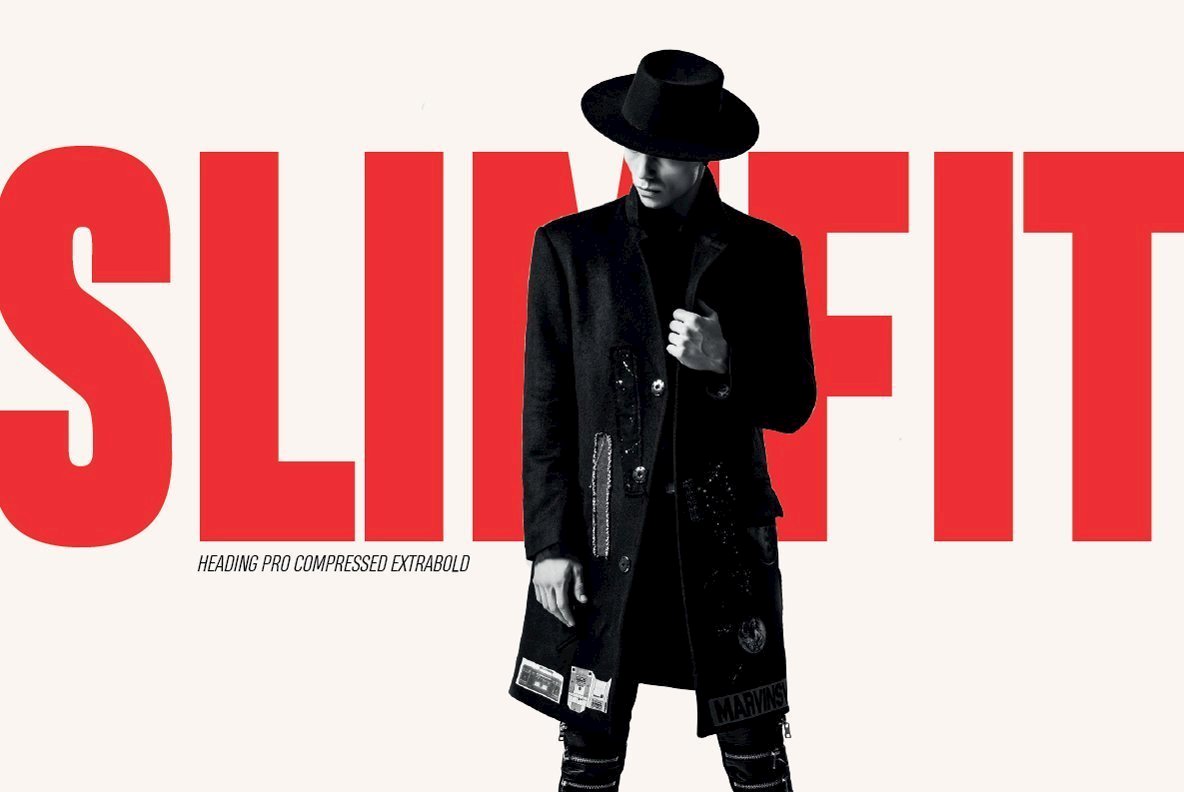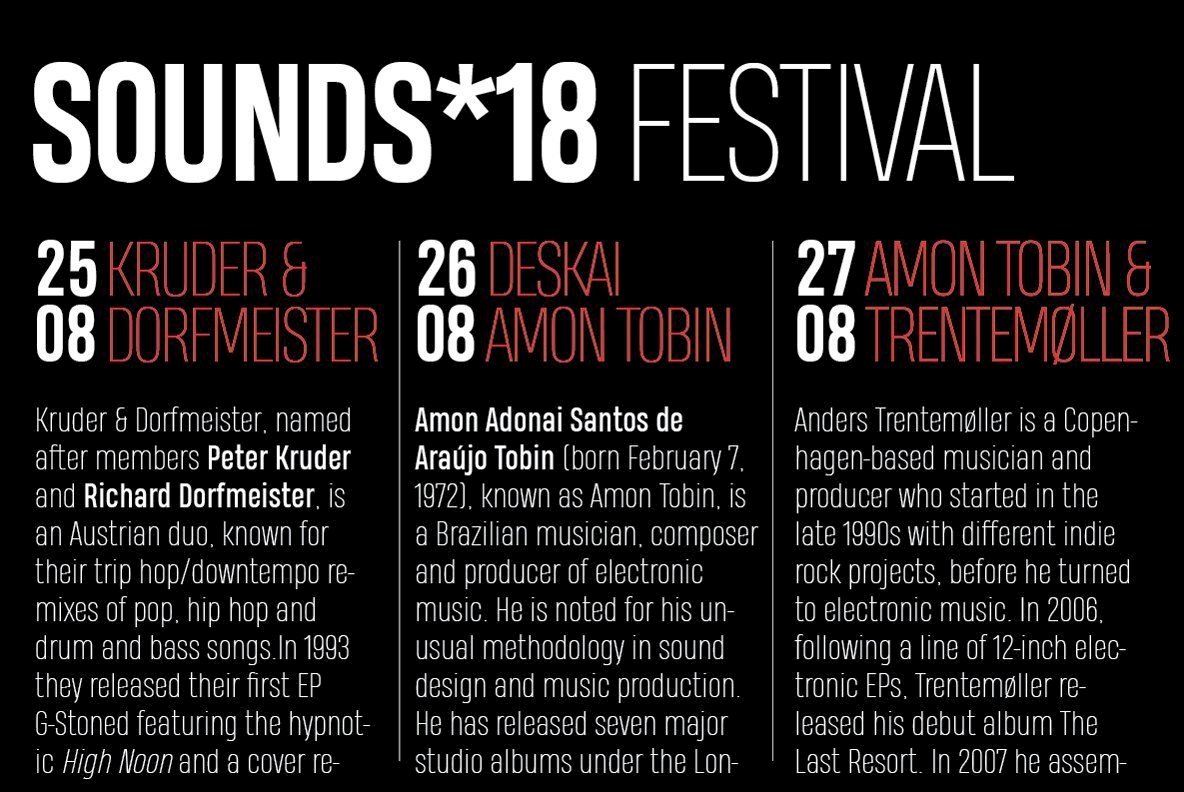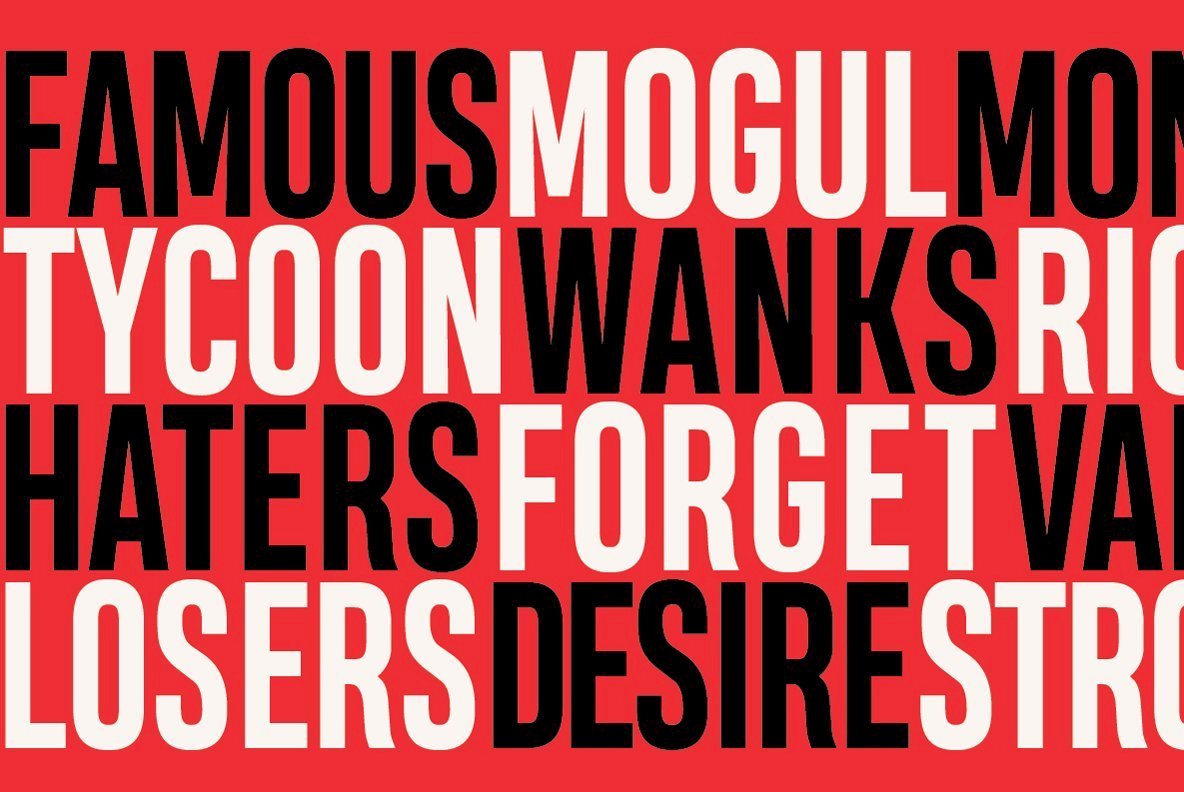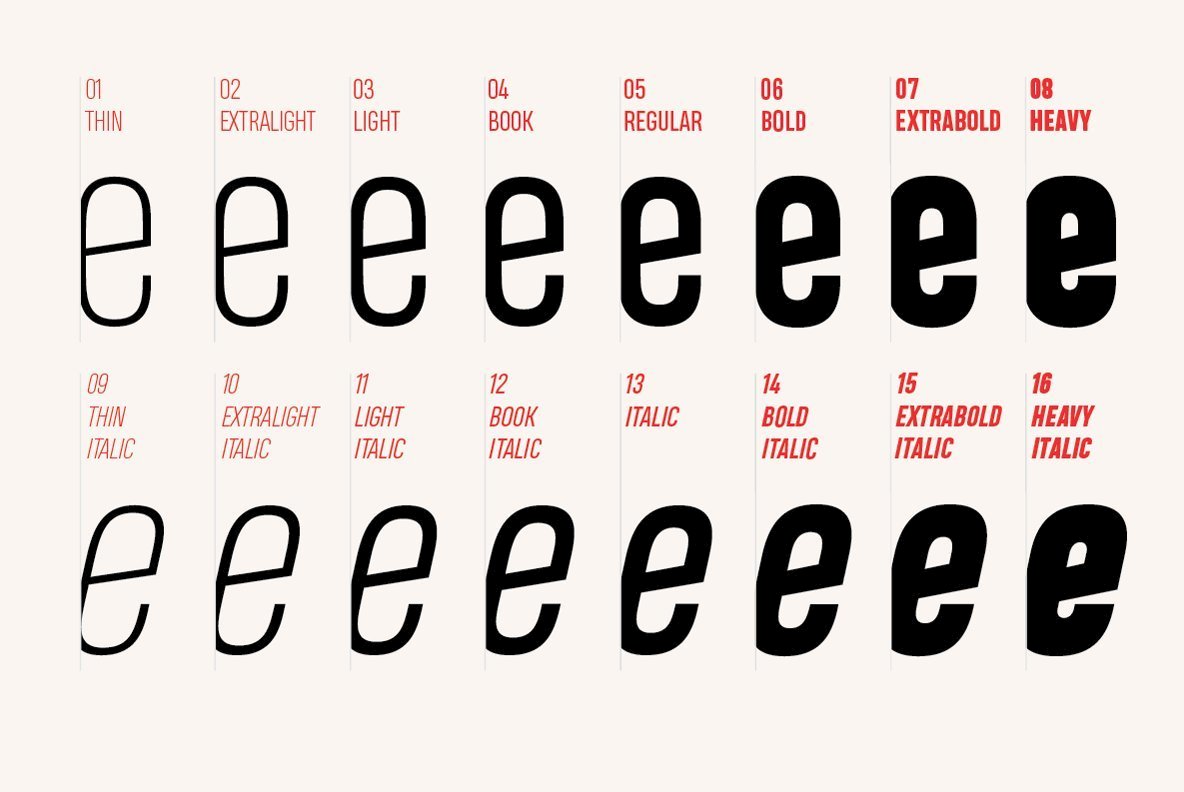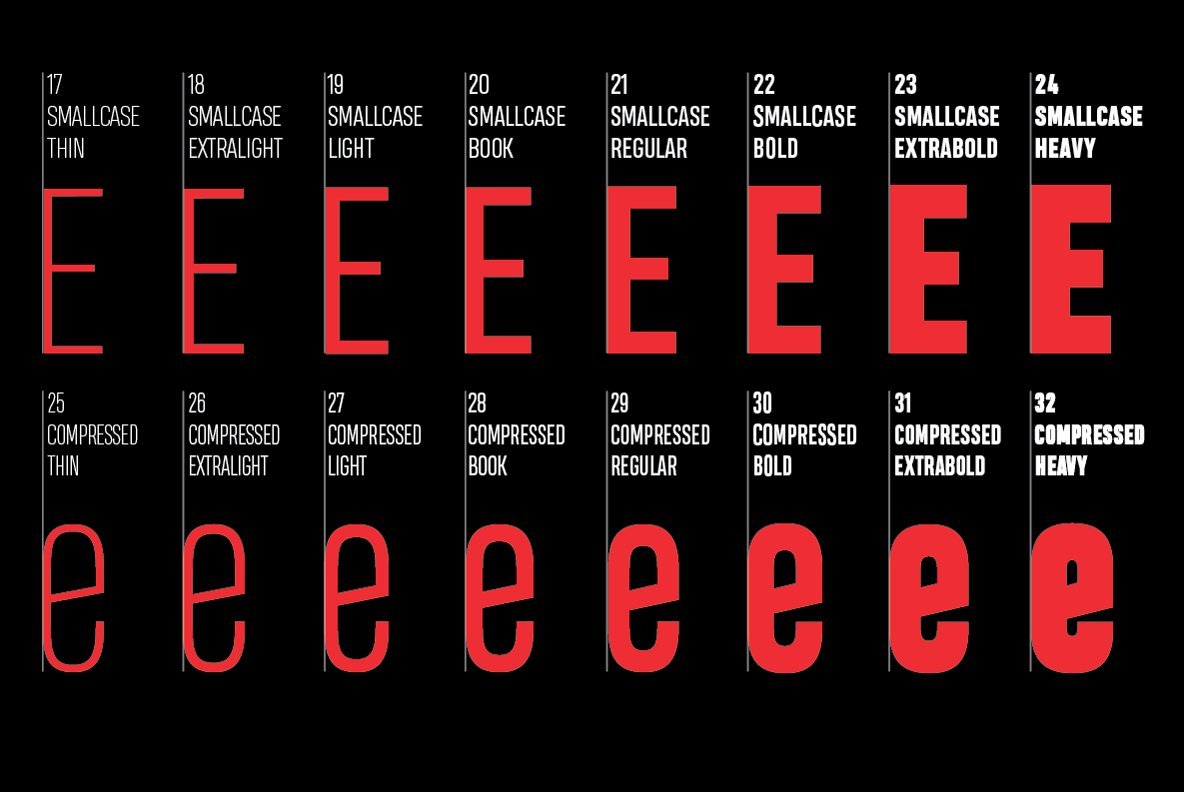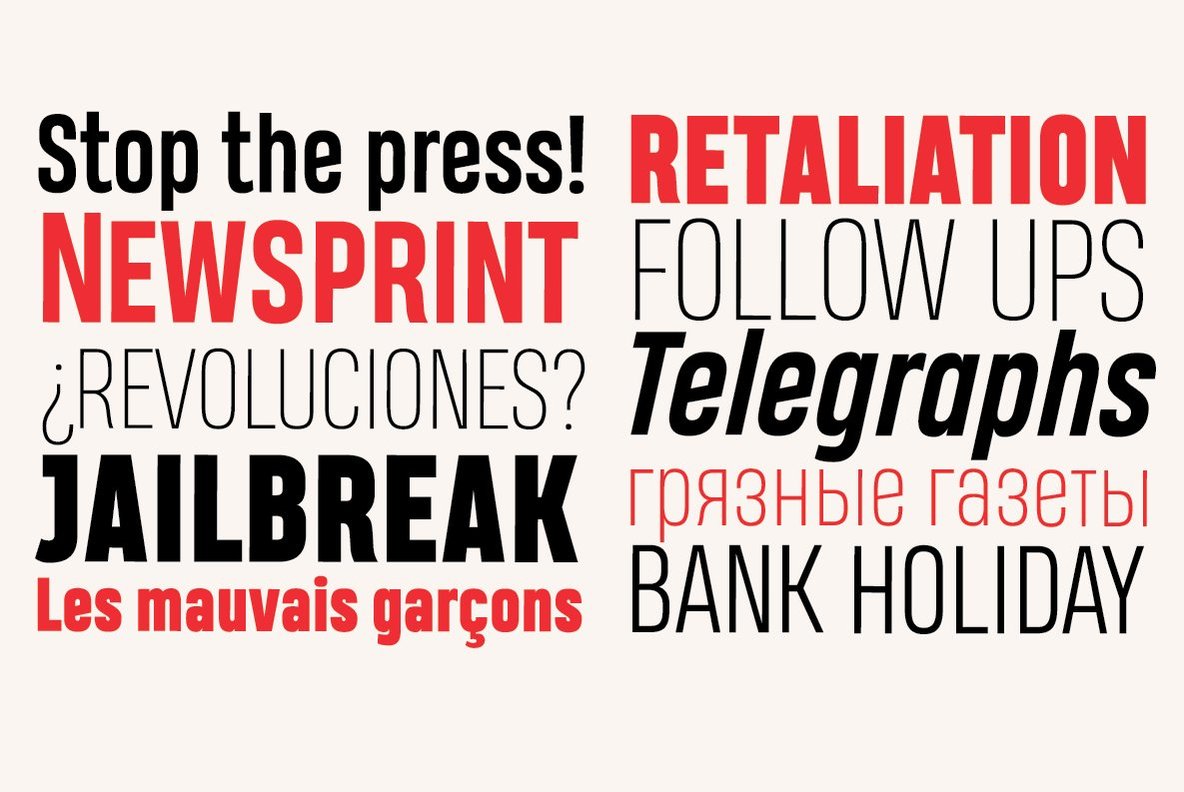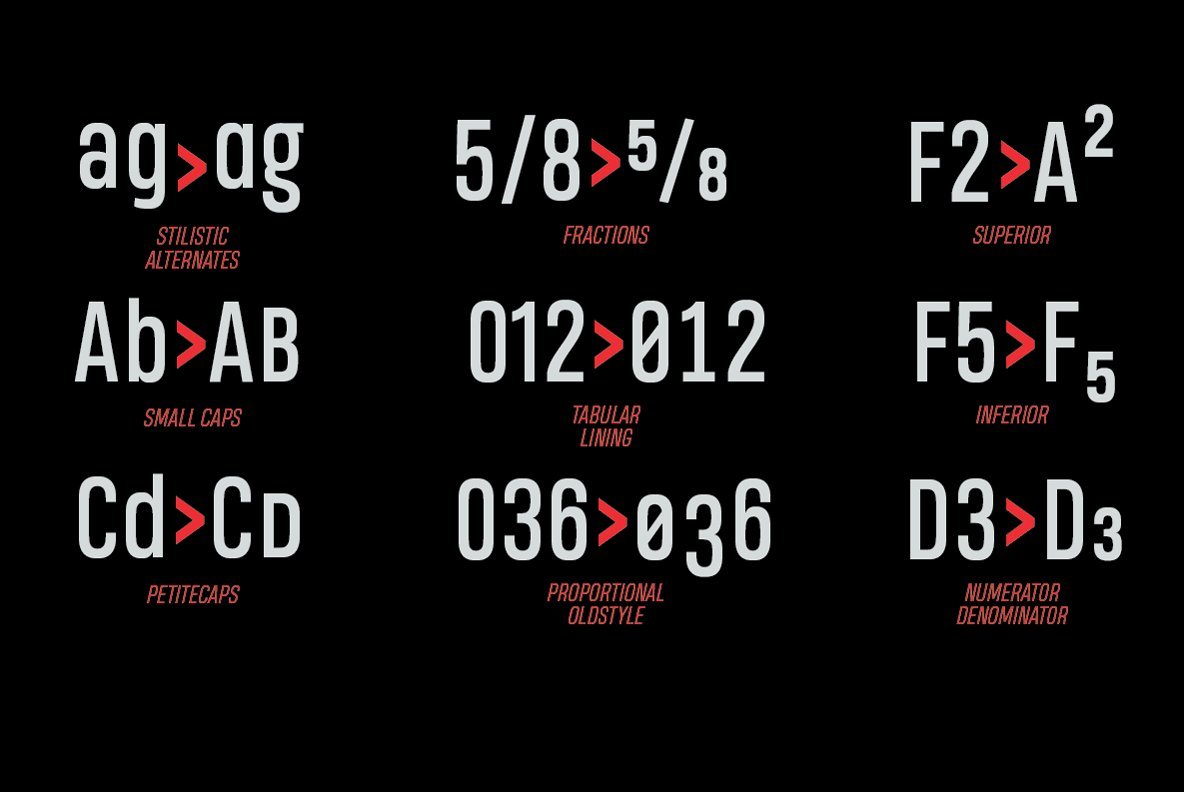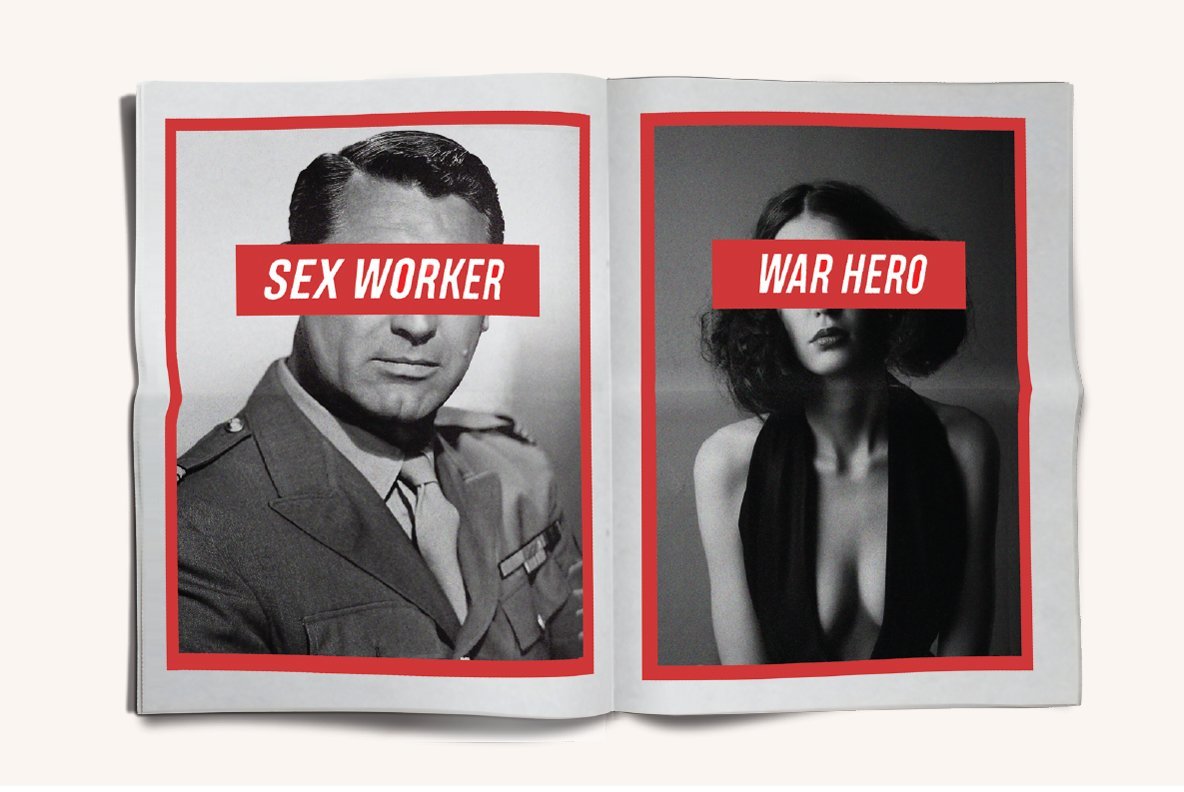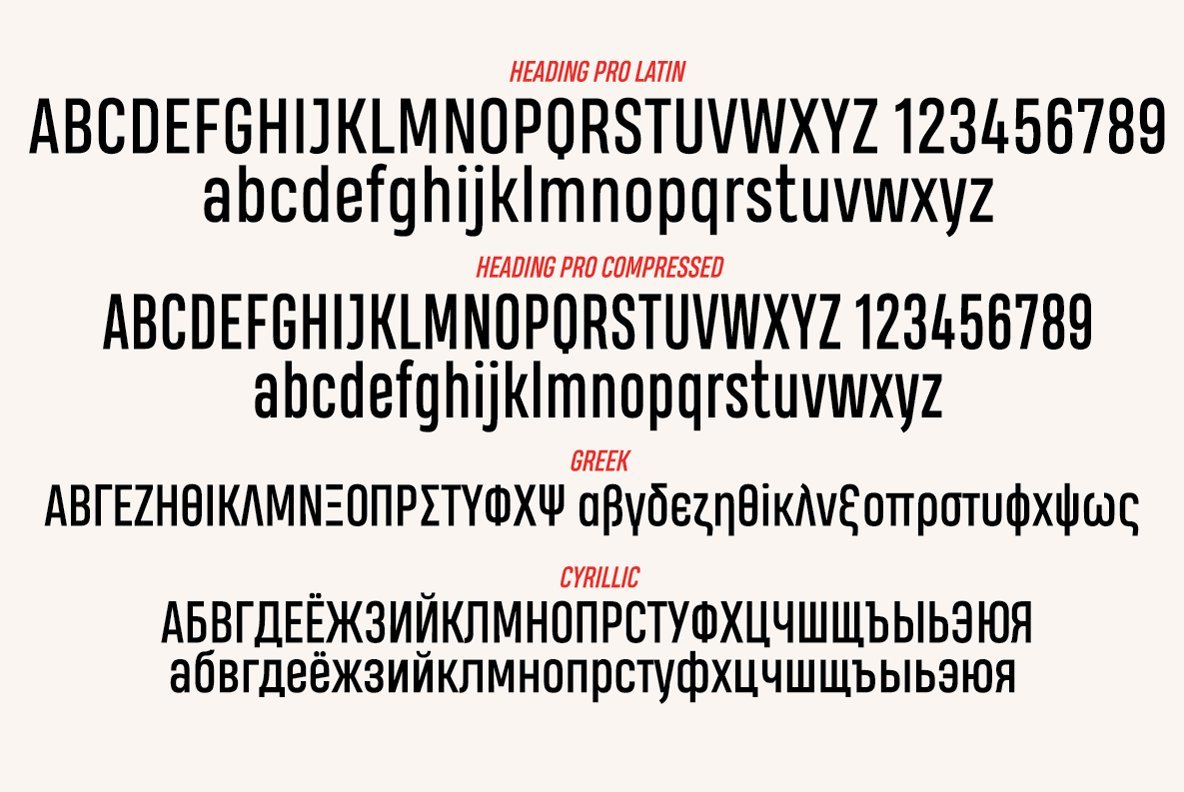
Heading Pro Font
Heading is a typeface family designed by Francesco Canovaro for Zetafonts. It's a geometric condensed typeface with high legibility and a powerful personality, created to optimize space on the printed page and on the screen. Heading Pro, coming in eight weights and matching italics, is designed to excel in titles and subheadings, timetables, name and credit lists and cases of exuberant and excessive copywriting.